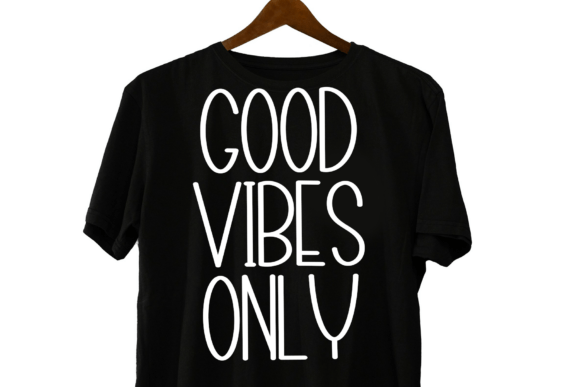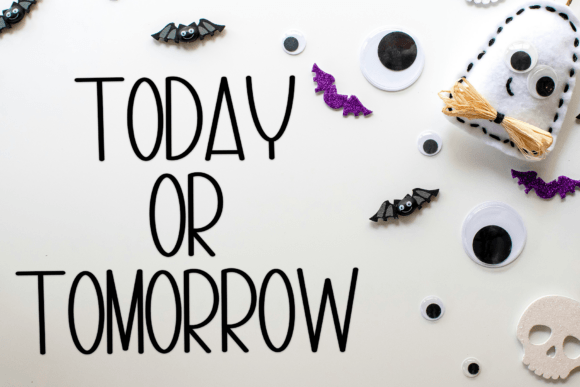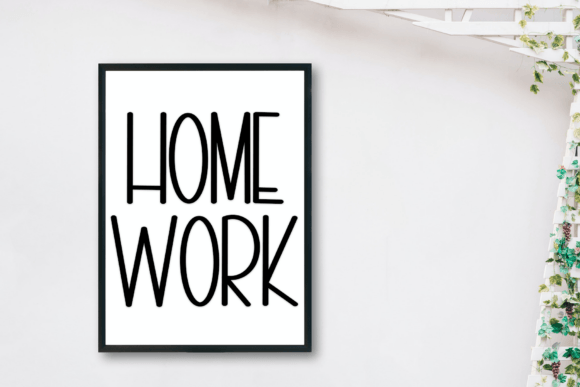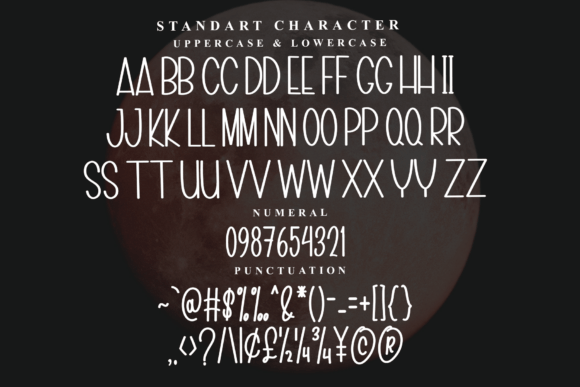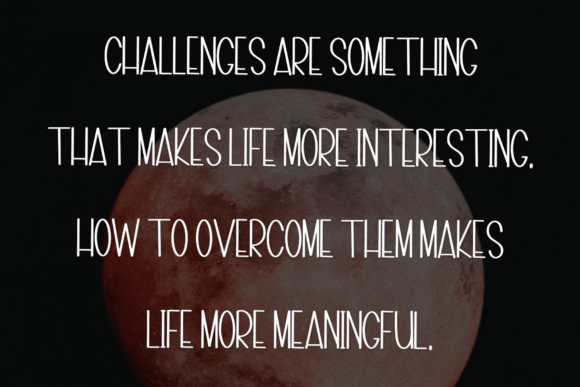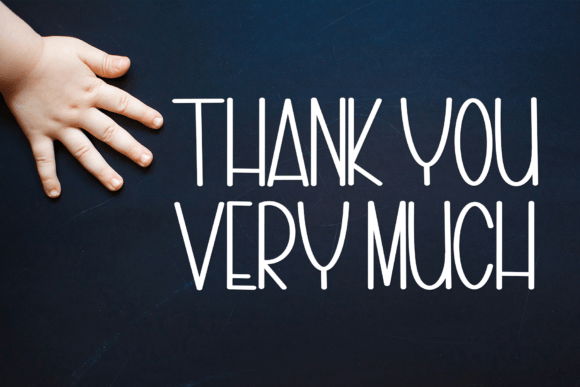
Unleash the Spook: Exploring the Ghost Vampire Font for Creepy Designs
As the witching hour approaches, designers and crafters are on the lookout for the perfect typography to add a dash of eeriness to their Halloween-themed projects. Look no further than the Ghost Vampire Font, a spooky and fun handwritten font that’s sure to cast a spell on your audience. In this article, we’ll dive into the world of Ghost Vampire, exploring its unique features, uses, and benefits for designers and crafters.
The Spooky Charm of Ghost Vampire Font
Ghost Vampire is a handwritten font that exudes a playful, eerie style, making it an ideal choice for Halloween or any creepy-themed designs. Its unique, hand-drawn look is reminiscent of haunted houses, creepy crawlies, and ghostly apparitions. The font’s irregularities and quirks add to its charm, giving it a one-of-a-kind personality that’s sure to stand out.
What Makes Ghost Vampire Font So Special?
- Hand-drawn with love: Each letter has been carefully crafted by hand, giving the font a personal touch that’s hard to find in digital typography.
- Playful yet eerie: Ghost Vampire strikes the perfect balance between spooky and fun, making it suitable for a wide range of designs, from Halloween party invitations to creepy crafts.
- Versatile: This font is perfect for a variety of projects, including posters, flyers, social media graphics, and more.
Design Ideas to Get You Started
Now that you’re familiar with the Ghost Vampire Font, it’s time to get creative! Here are some design ideas to inspire you:
- Halloween party invitations: Set the tone for a spooktacular celebration with Ghost Vampire-font invitations that will leave your guests shivering with excitement.
- Creepy crafts: Add a touch of eeriness to your handmade crafts, such as spooky decorations, monster-themed cards, or haunted house signs.
- Social media graphics: Create eye-catching social media graphics that will make your followers scream with delight.
- Poster designs: Design bold, attention-grabbing posters for horror movies, haunted attractions, or spooky events.
Tips for Using Ghost Vampire Font
To get the most out of Ghost Vampire, here are some tips to keep in mind:
- Experiment with colors: While black and orange are classic Halloween colors, don’t be afraid to try out other colors to add an extra layer of spookiness to your design.
- Mix and match: Combine Ghost Vampire with other fonts or graphics to create a unique, eye-catching design.
- Keep it simple: Don’t overcomplicate your design – sometimes, less is more. Let the font speak for itself and make a bold statement.